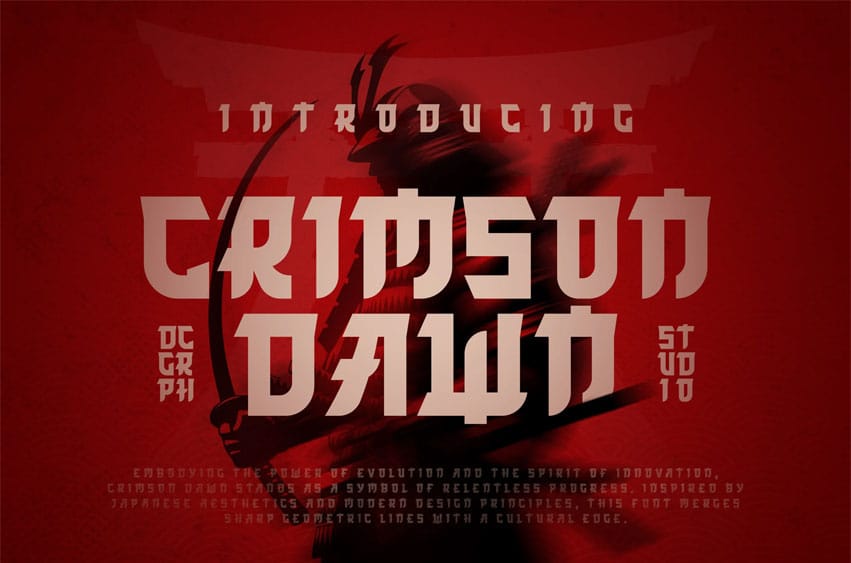
Crimson Dawn Font: When sharp geometry meets cultural aesthetics — we present CRIMSON DAWN. A bold Japanese-inspired display font that fuses modern design principles with the spirit of tradition, Crimson Dawn radiates strength, discipline, and fearless energy.
With its angular strokes and futuristic feel, this typeface is perfect for posters, logos, gaming titles, martial arts events, and any project that needs a powerful Asian-inspired identity. It balances cultural heritage with modern innovation, making it a striking choice for both digital and print works.